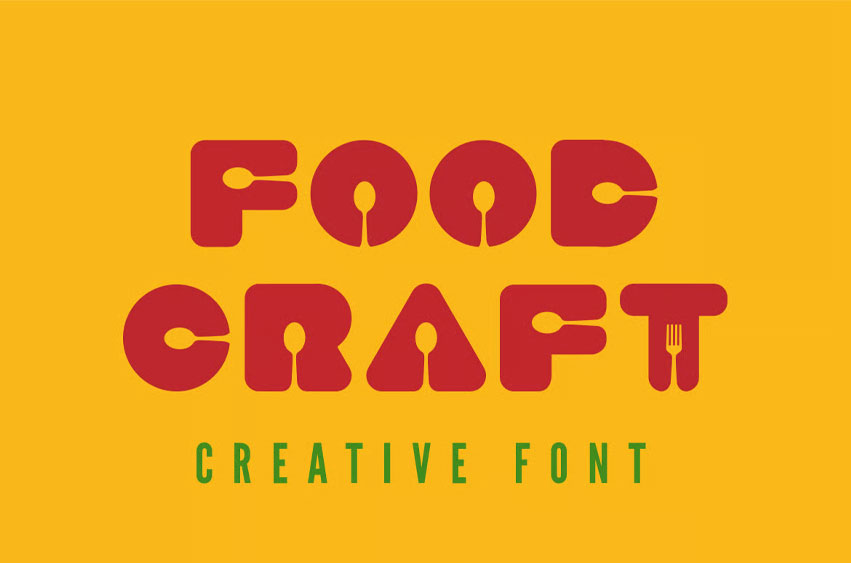
Food Craft Font
Food Craft Font true type web font. Made for Titles, Logos, Restaurants, Bars, Cafe etc.
Crafted with high attention to detail, it gives you the best design experience.